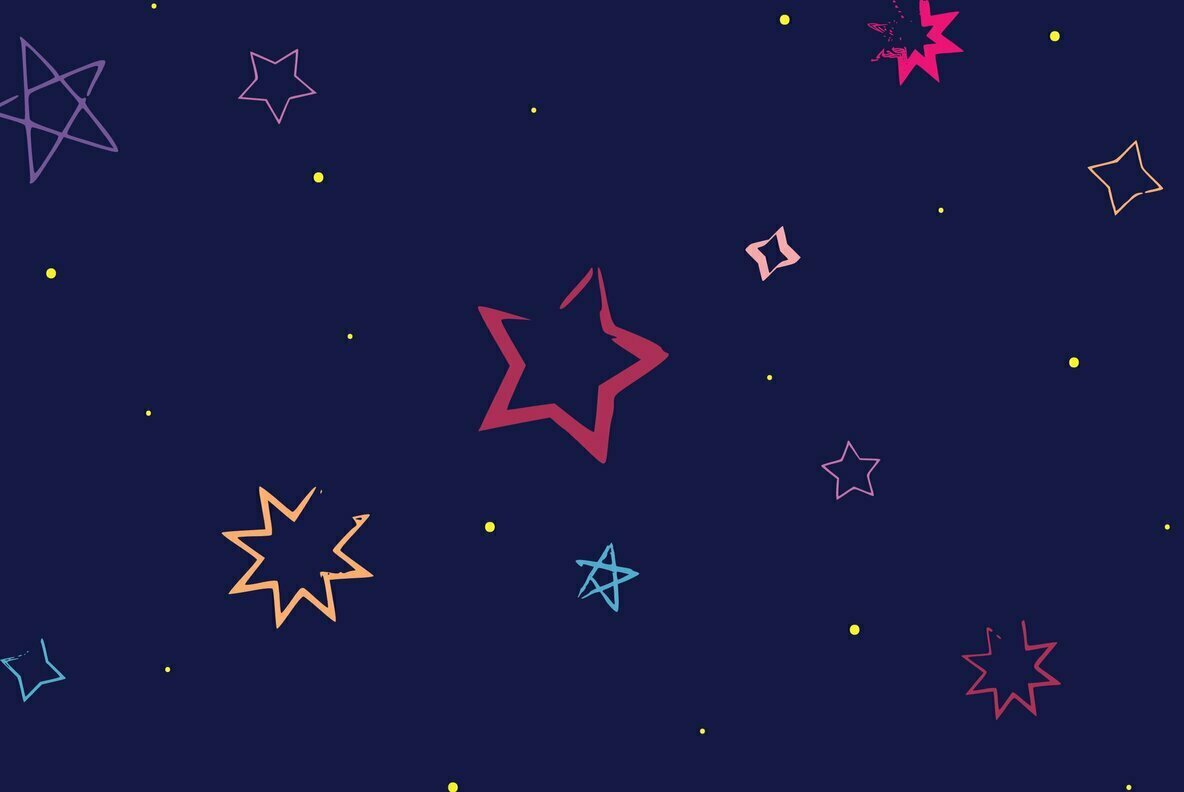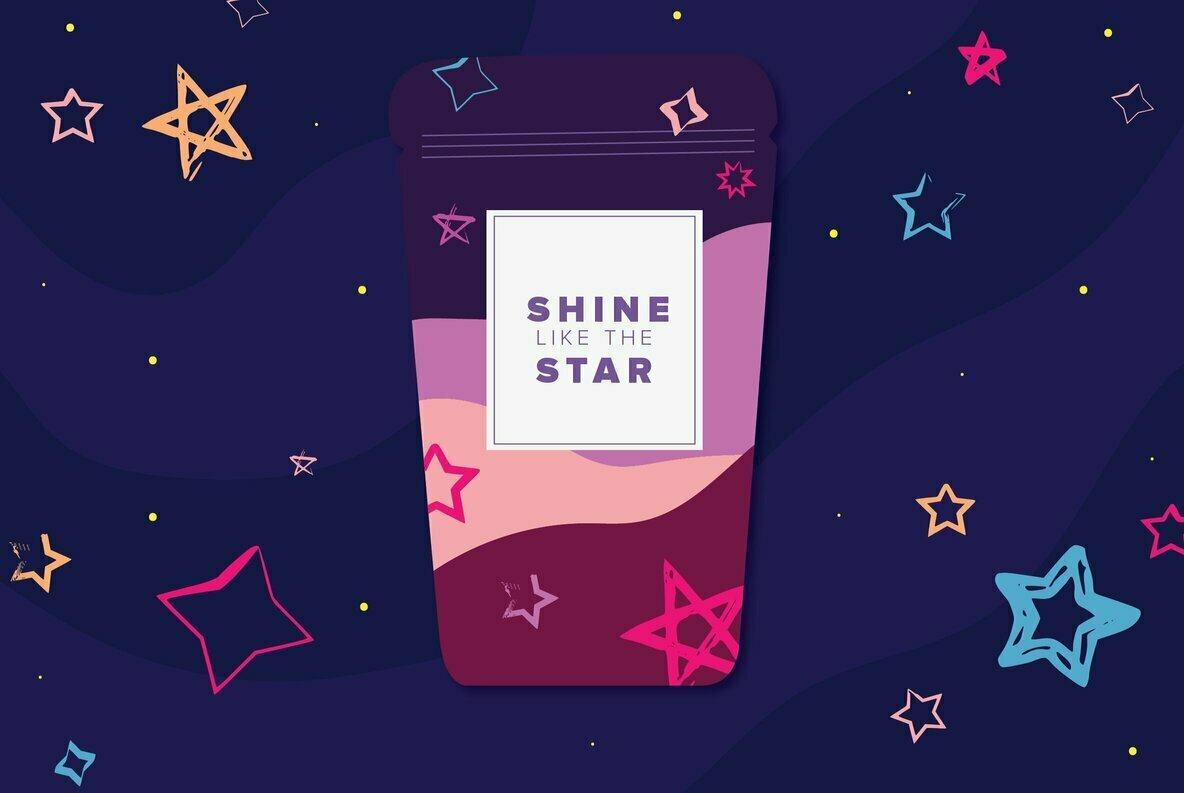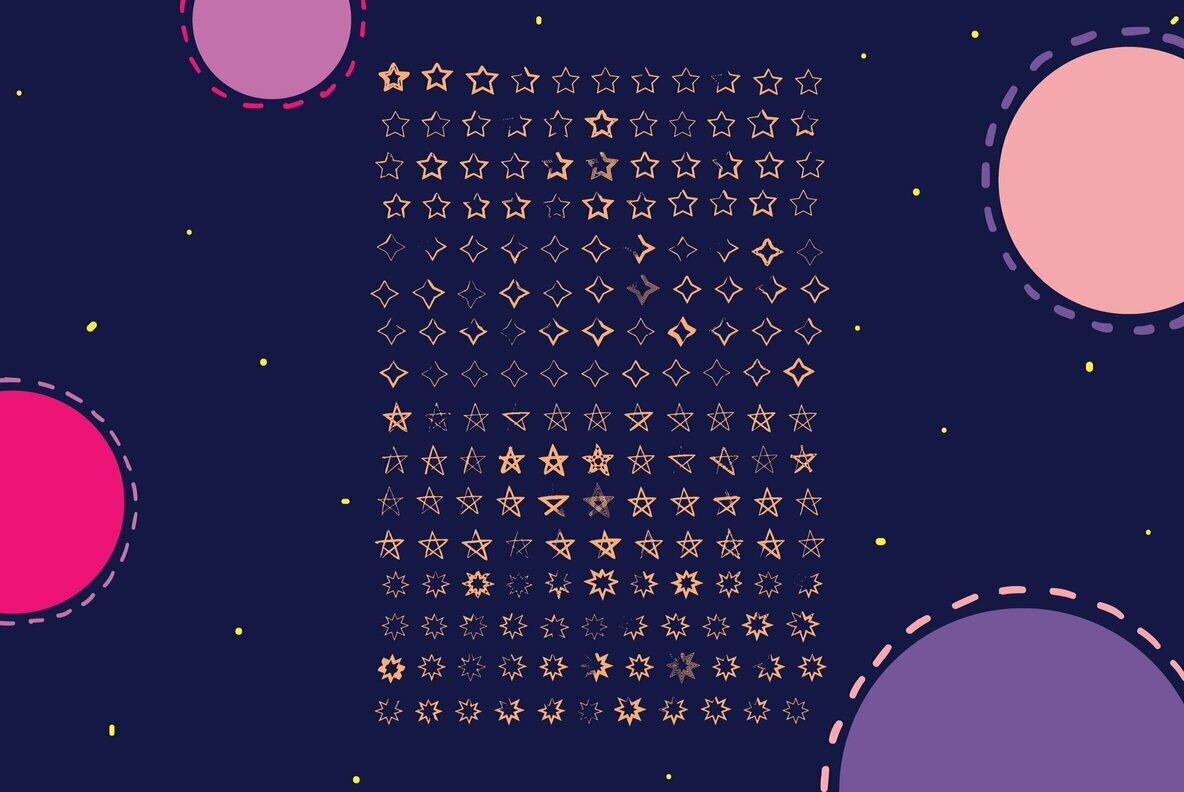
BM Graphic Stars Font
BM Stars Hexagon
BM Stars Natal
BM Stars Octogram
BM Stars Pentagram
BM Stars Star
BM Stars is a stunning dingbats font that combines 290 Glyphs in 5 different font files presented in a OFT format.. Use it for any design project that requires a starry update! Featuring Hexagon, Natal, Octagram, Pentagram and traditional 5 pointed star all in a host of effected styles.